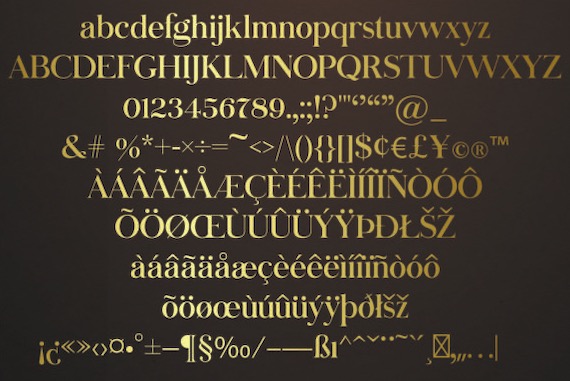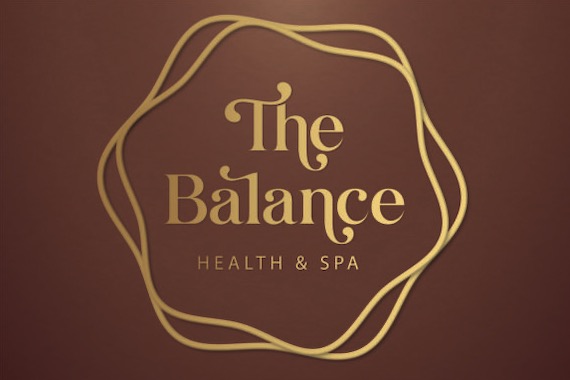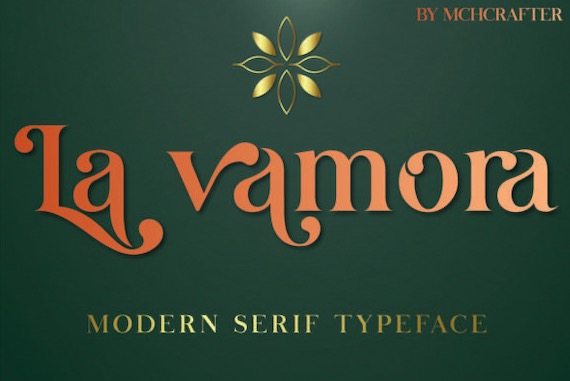
La Vamora comes with a classic and classy look, this serif font was created and shared by MchCrafter along with a stylish style. It’s PUA encoded which means you can access all of the glyphs and swashes with ease. It will look extraordinary in a variety of contexts.
La Vamora Serif Font